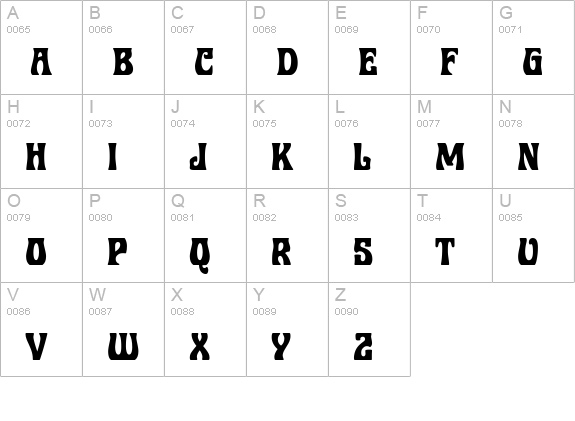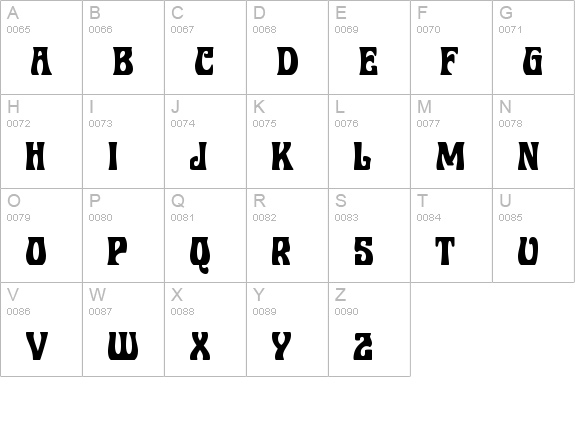
Roberta font is a versatile and elegant typeface that exudes sophistication and modernity. With its clean lines and subtle curves, Roberta is perfect for a wide range of design projects, from branding to editorial design. This font offers a timeless and classic look while still feeling fresh and contemporary. What makes Roberta font even more appealing is that it is available for free download at FontsMarket.com. This means that you can easily access this beautiful typeface without any cost, making it a fantastic choice for both personal and commercial use. Don't miss out on the opportunity to enhance your designs with the timeless charm of Roberta font!